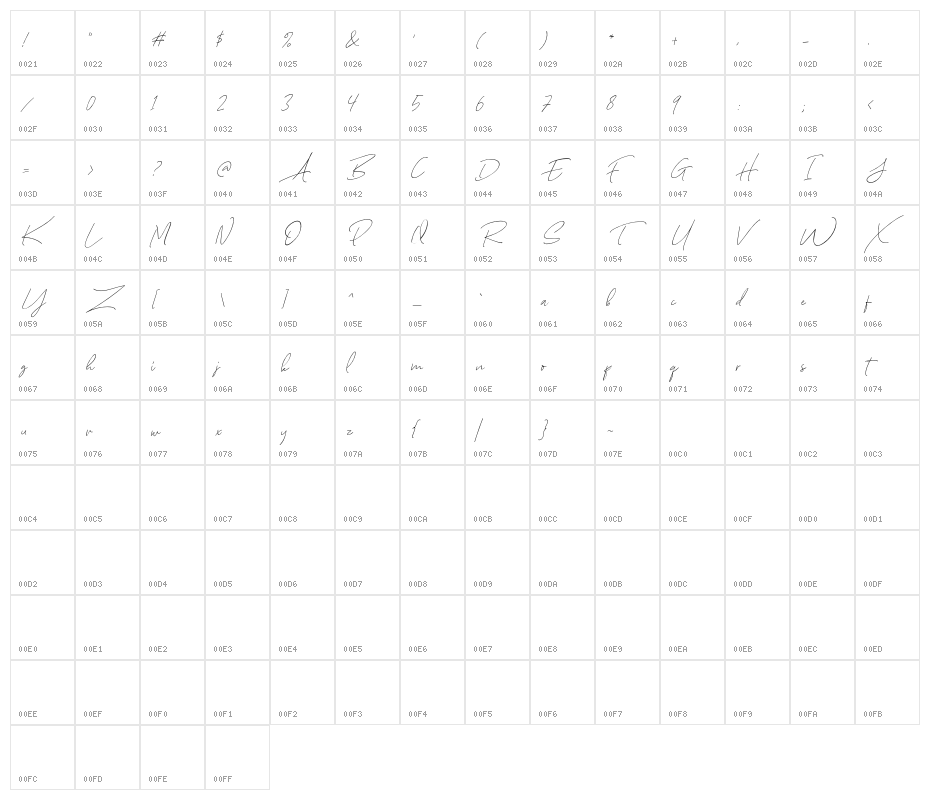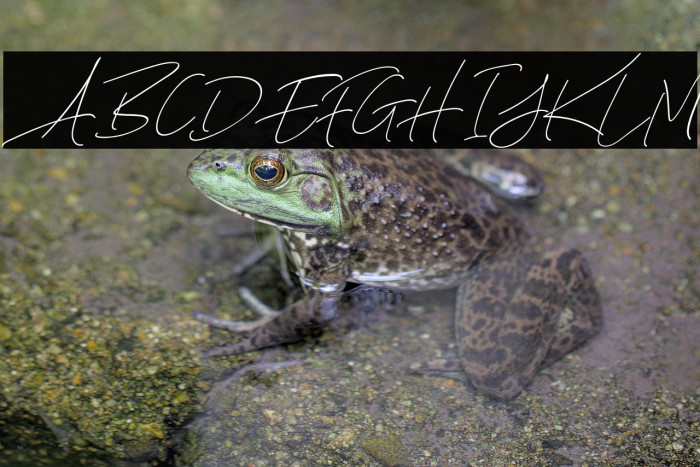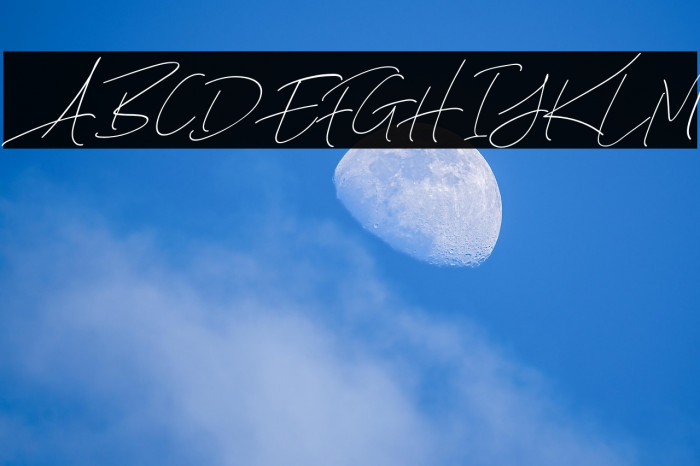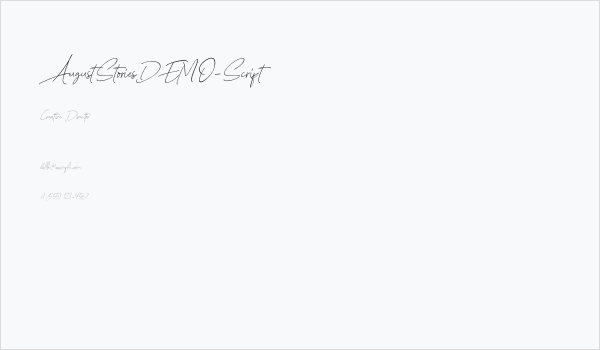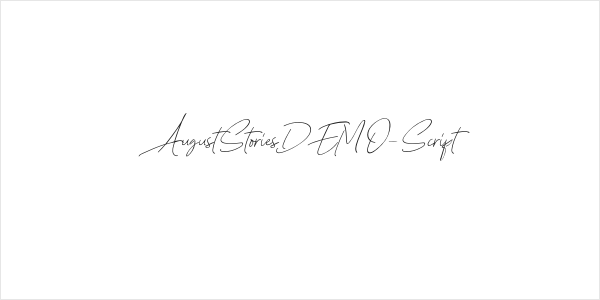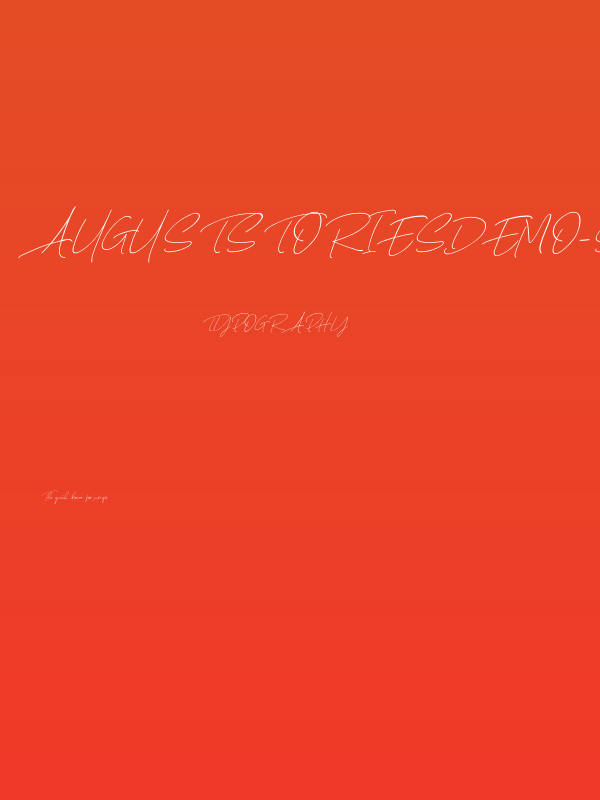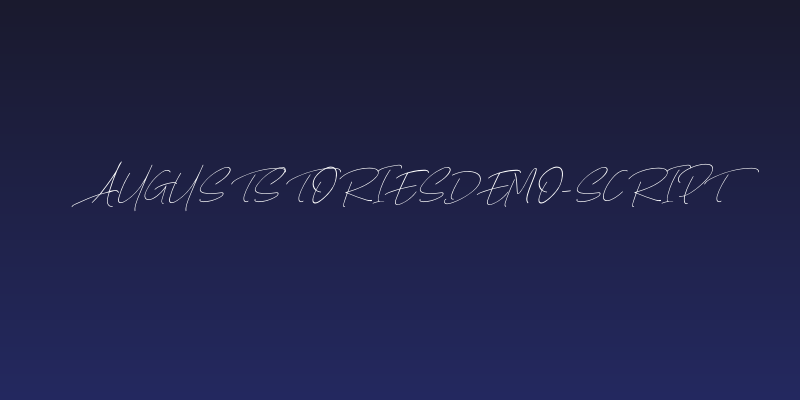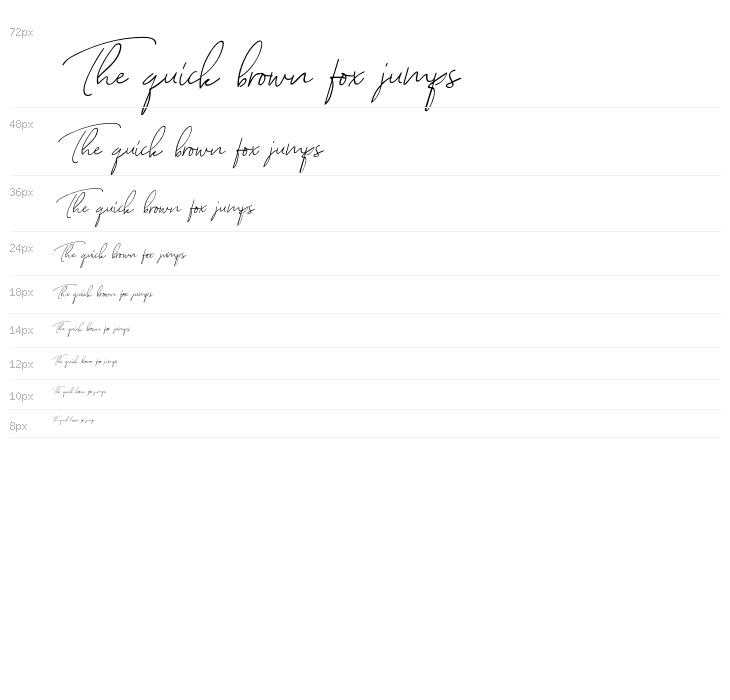
AugustStoriesDEMO-Script Font
AugustStoriesDEMO-Script Description
This elegant script font features a flowing, handwritten style that exudes sophistication and grace. The uppercase letters are characterized by sweeping, elongated strokes that give a sense of movement and fluidity. The lowercase letters maintain a consistent, cursive form, enhancing the font's overall cohesiveness. Numbers and special characters are designed with the same attention to detail, ensuring uniformity across all elements. The font's delicate lines and airy appearance make it ideal for projects that require a touch of elegance and personal flair.
| Overall Style | Elegant, Handwritten |
| Use Case | Logos, Invitations, Personal Branding |
| Proposed Projects | Ideal for wedding invitations, personal branding, elegant logos, and high-end product packaging. |